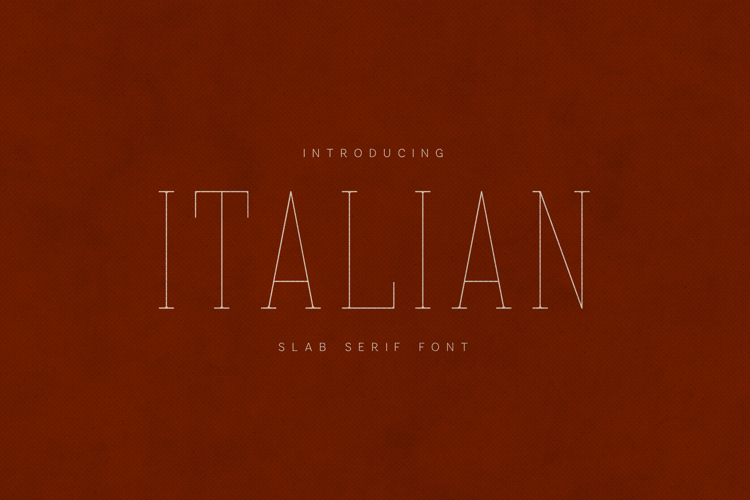
Italian Elegant Thin Slab Serif Font
Italian is an elegant, thin slab serif font designed for refined typography and sophisticated visual storytelling. With its tall proportions, delicate strokes, and subtle slab serifs, Italian delivers a timeless editorial aesthetic that feels both classic and contemporary.
This typeface is ideal for magazines, fashion editorials, luxury branding, posters, book covers, logos, and high-end design projects. Its light structure and graceful letterforms make it especially effective for large headlines, minimal layouts, and atmospheric compositions.
Italian includes a complete character set with uppercase and lowercase letters, numerals, punctuation, symbols, and extensive multilingual support, allowing seamless use across international projects. The font maintains excellent balance and readability while offering a distinctive, stylish personality.
If you’re looking for a slab serif font that feels elegant, editorial, and quietly expressive, Italian is crafted to elevate your typography.